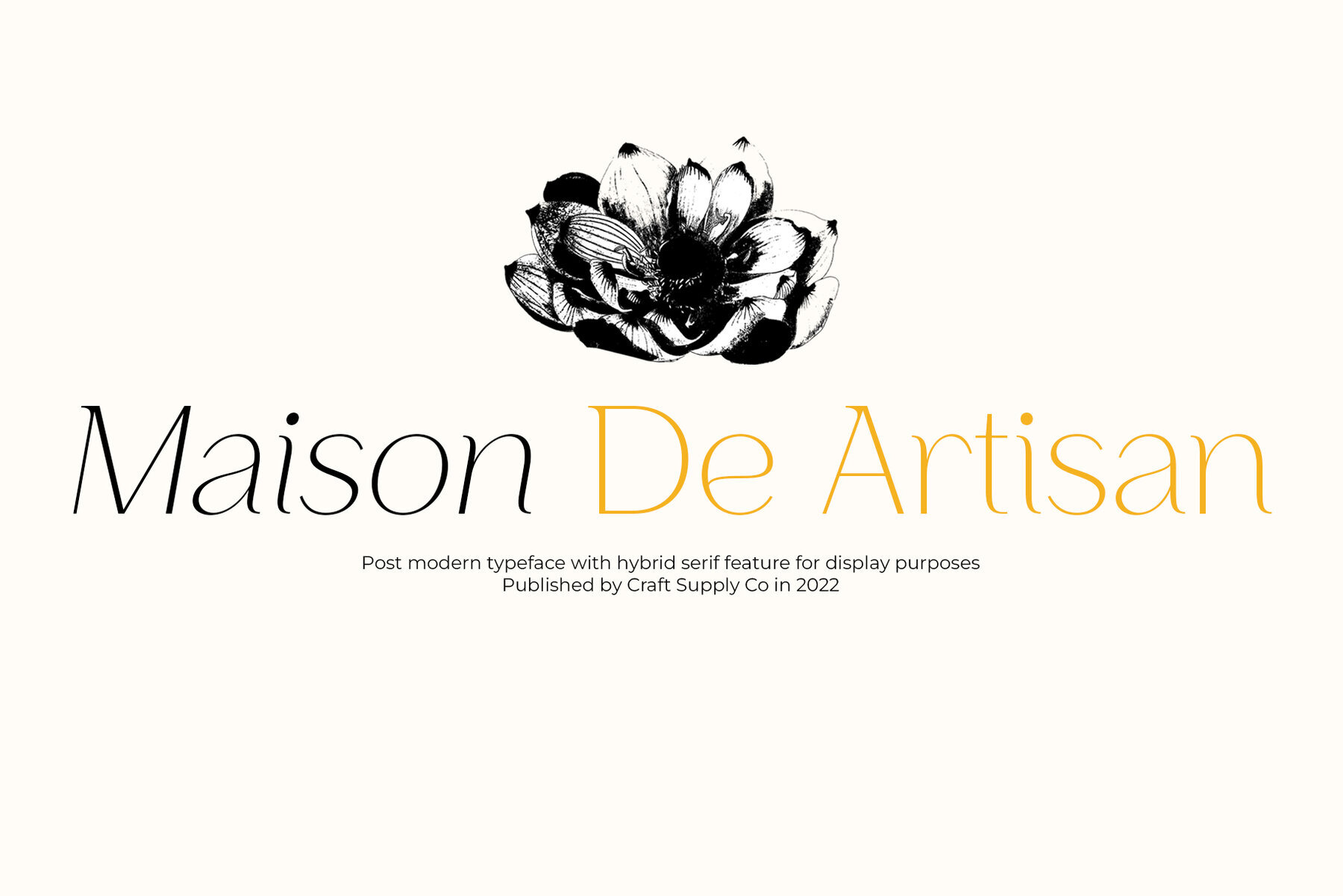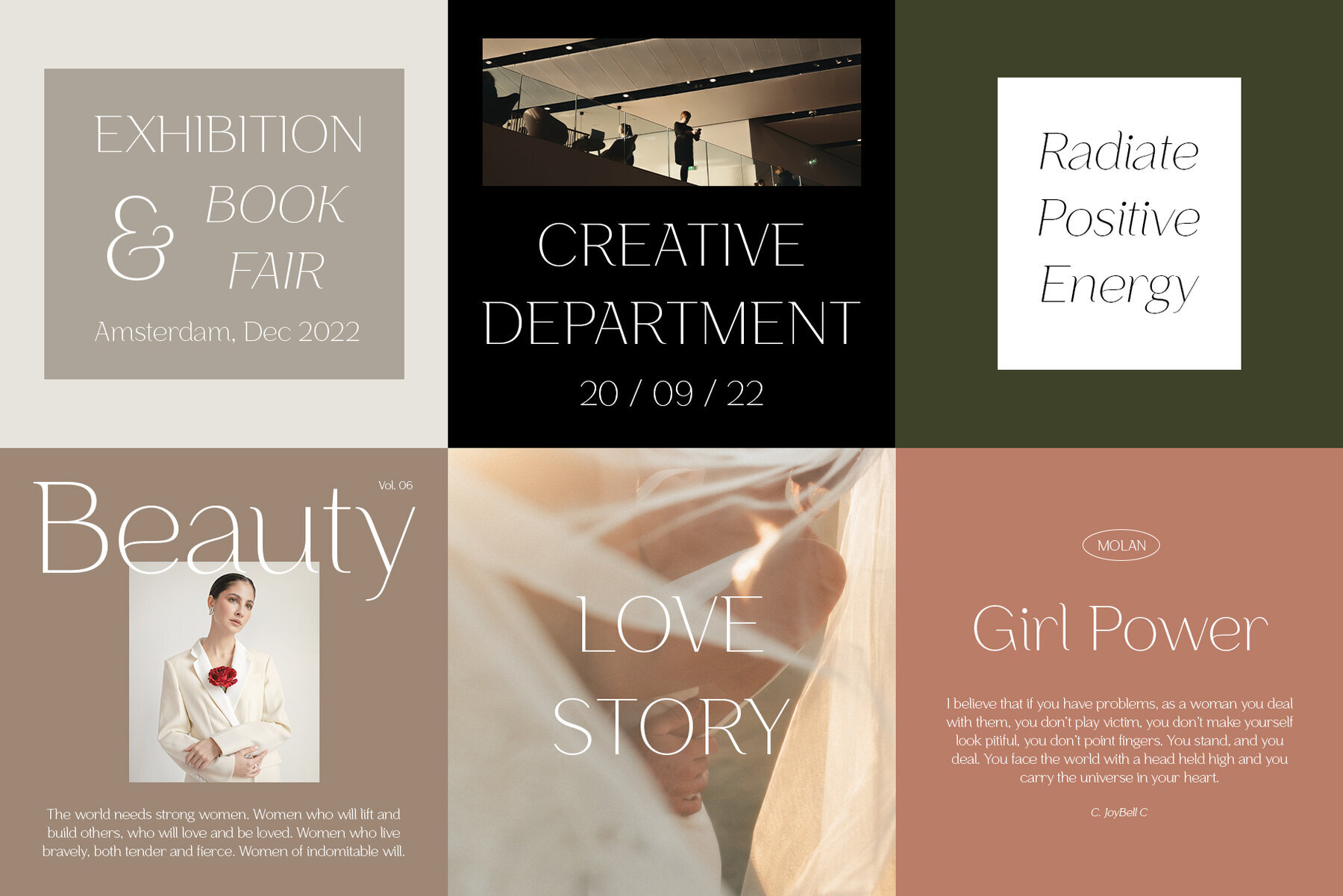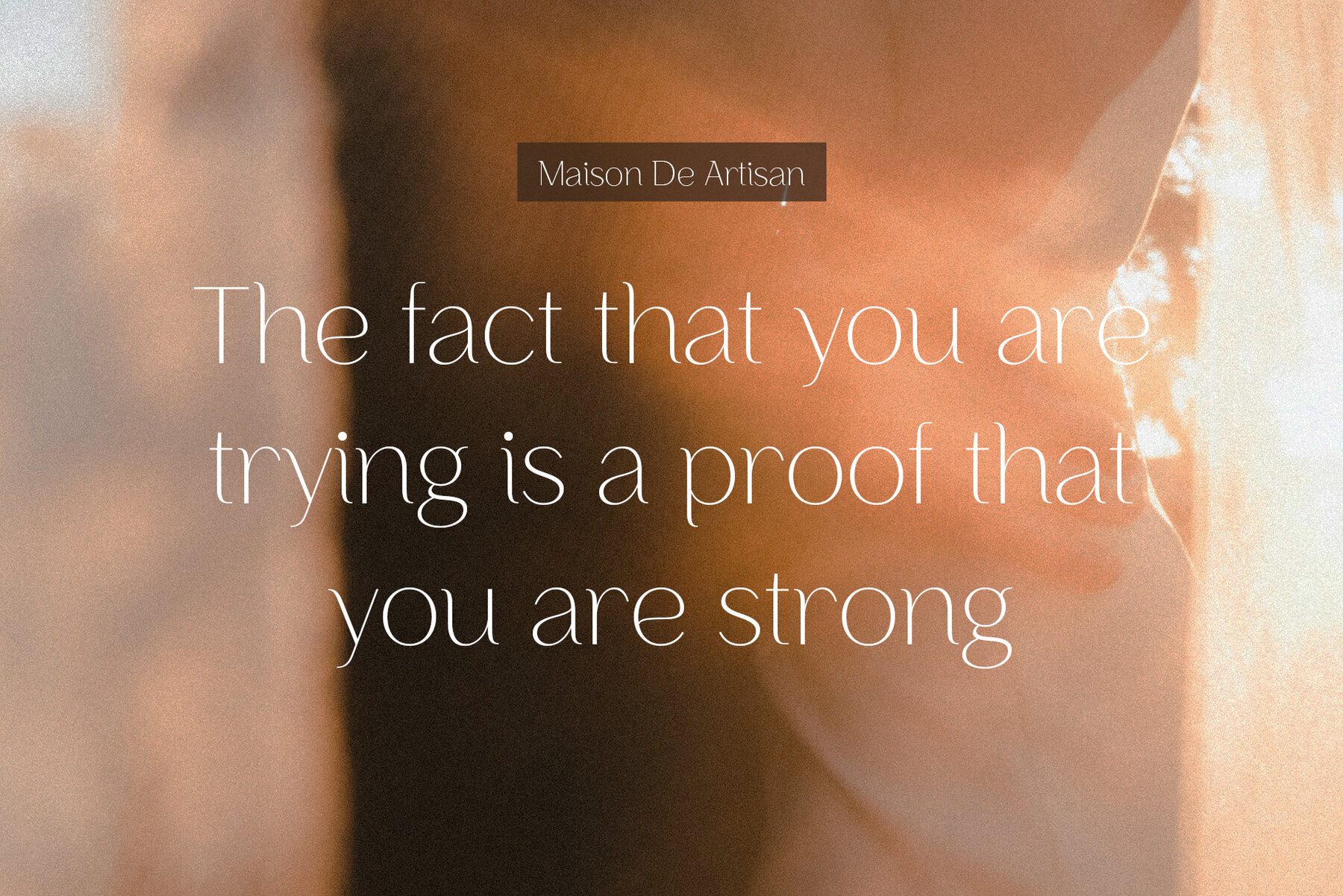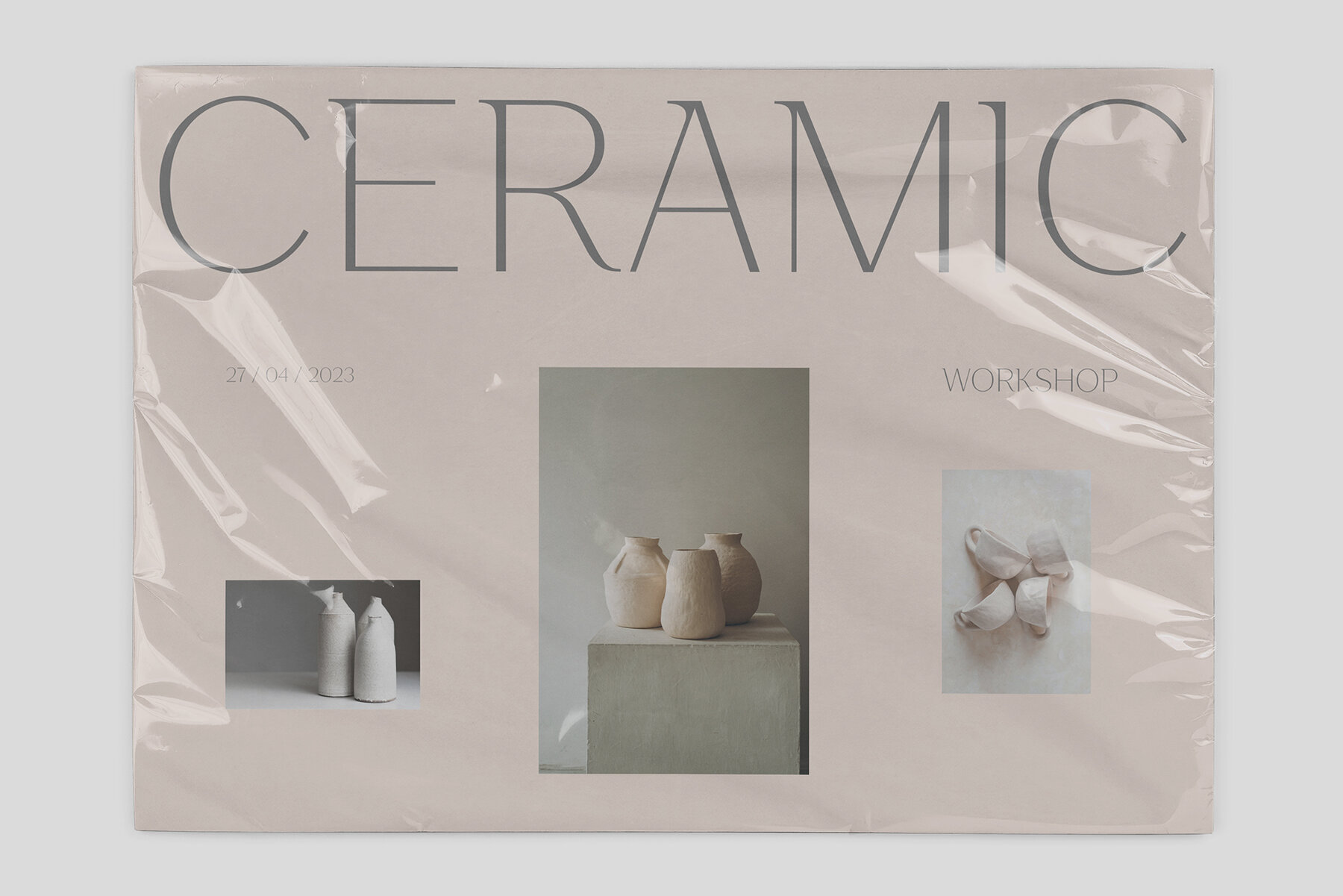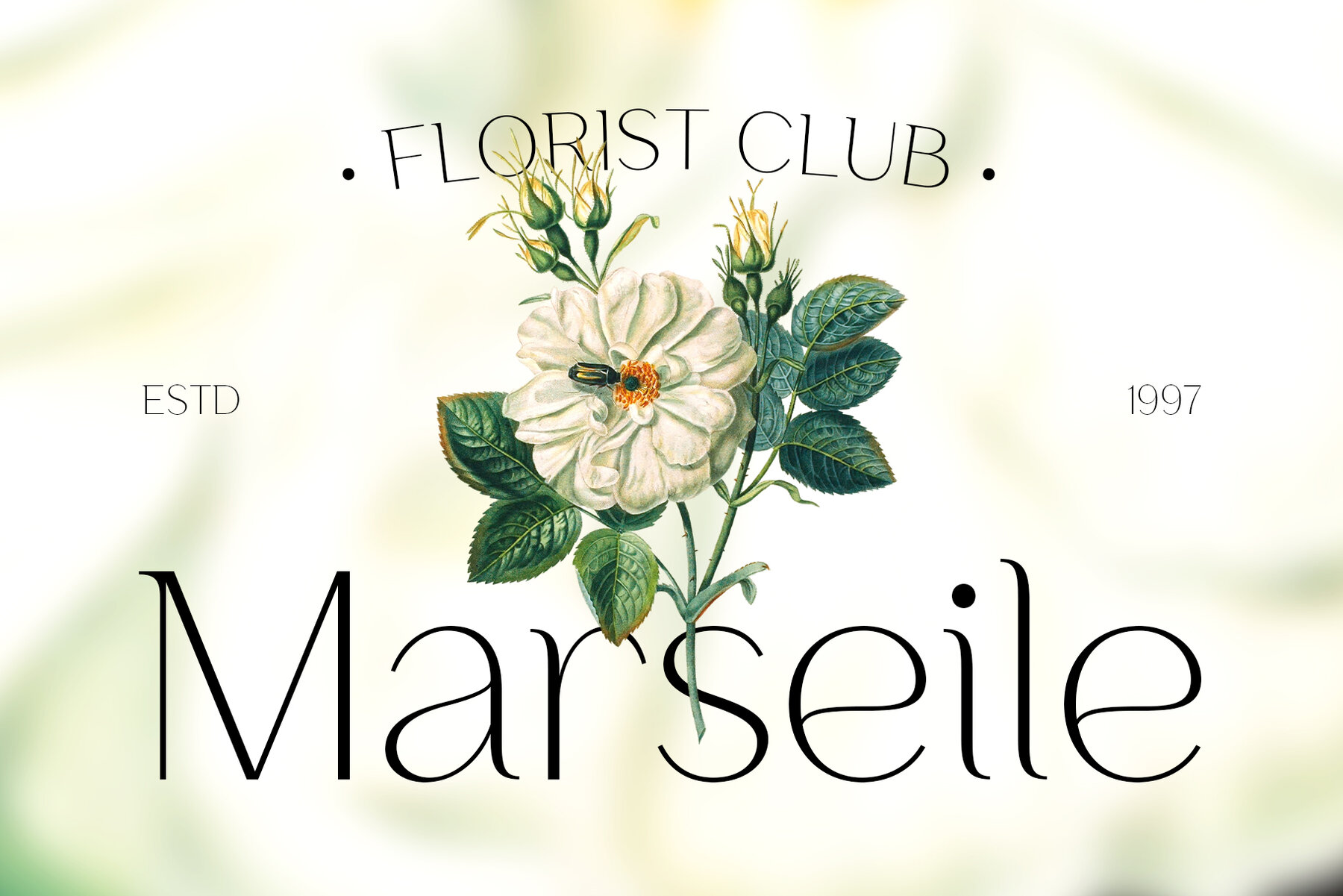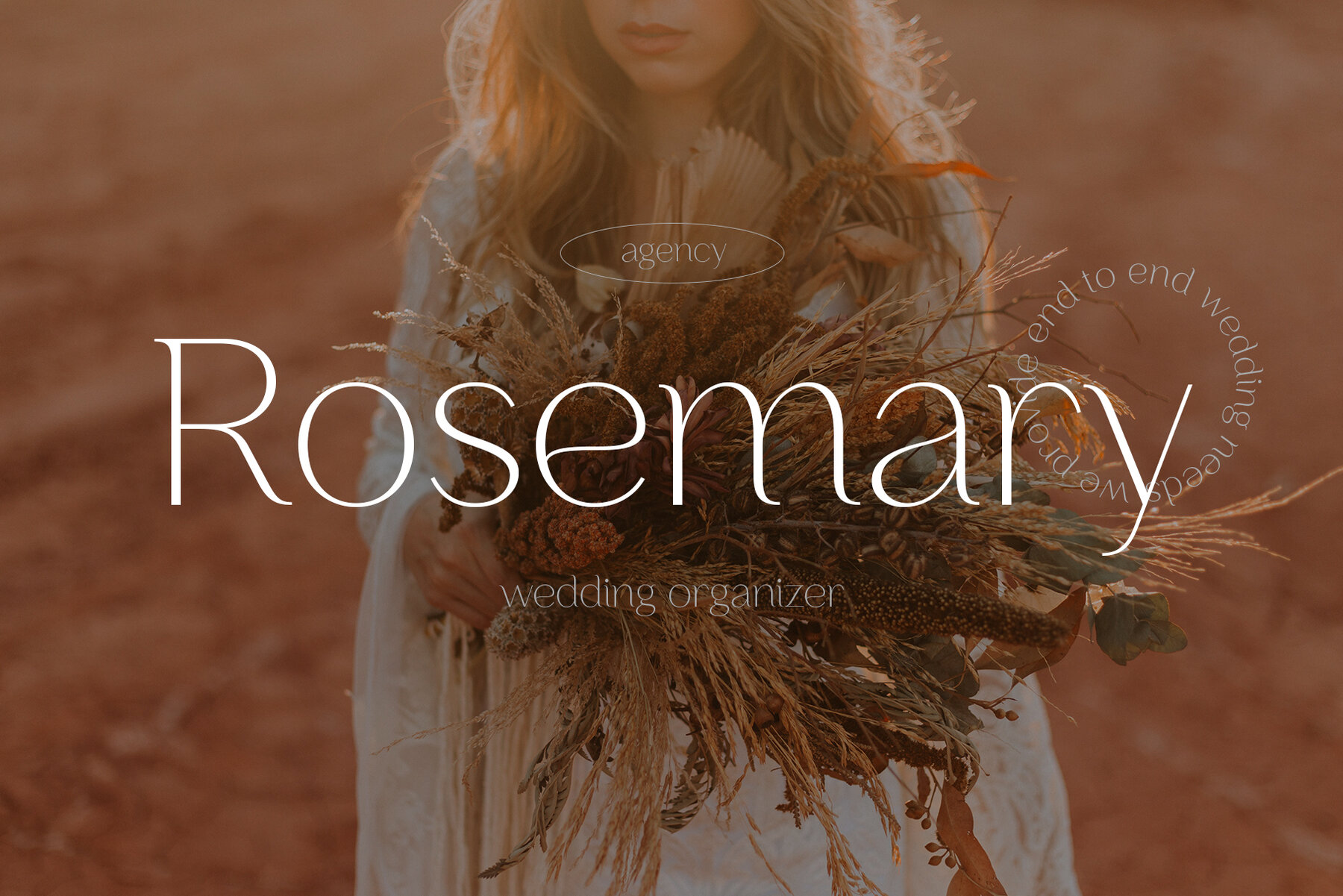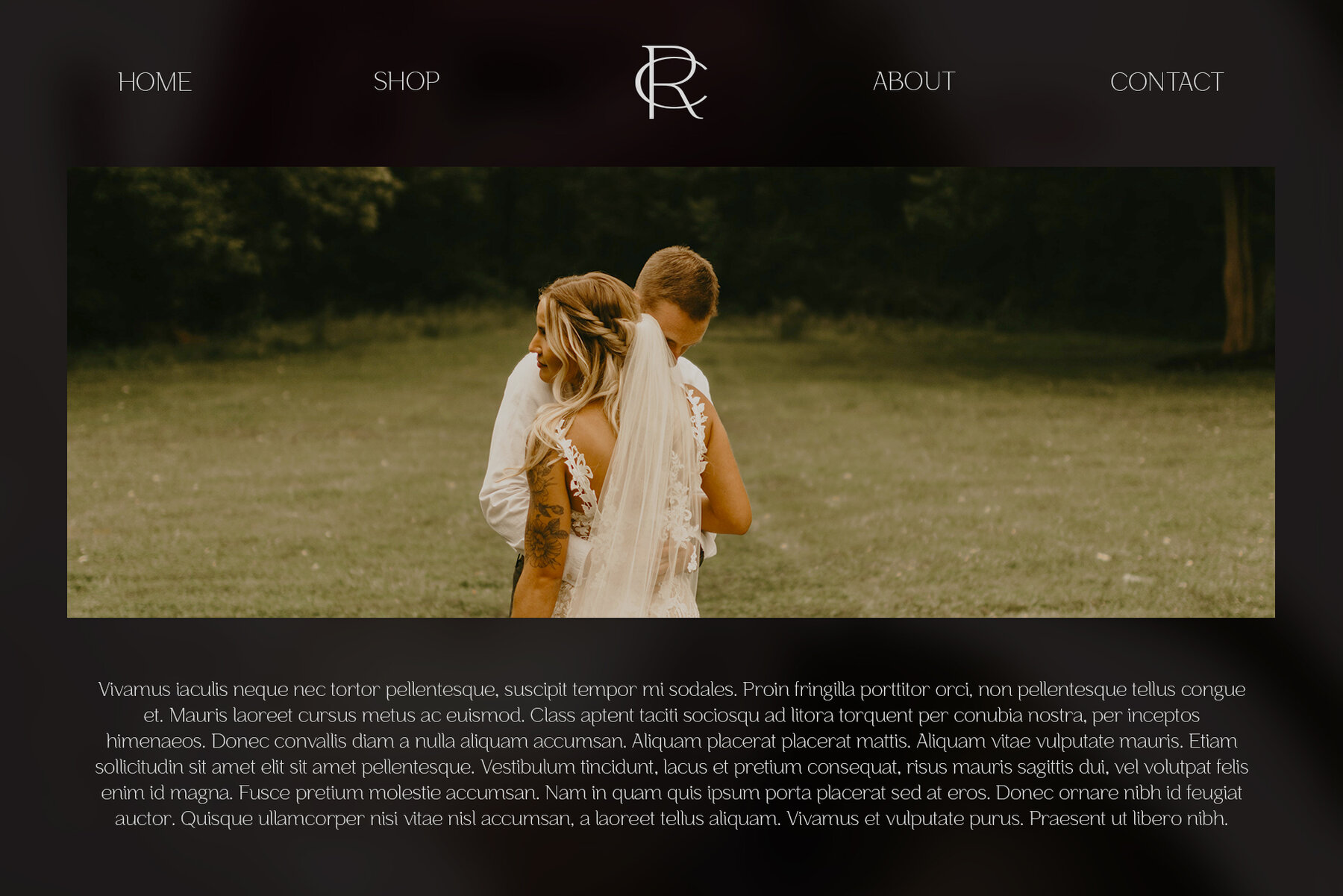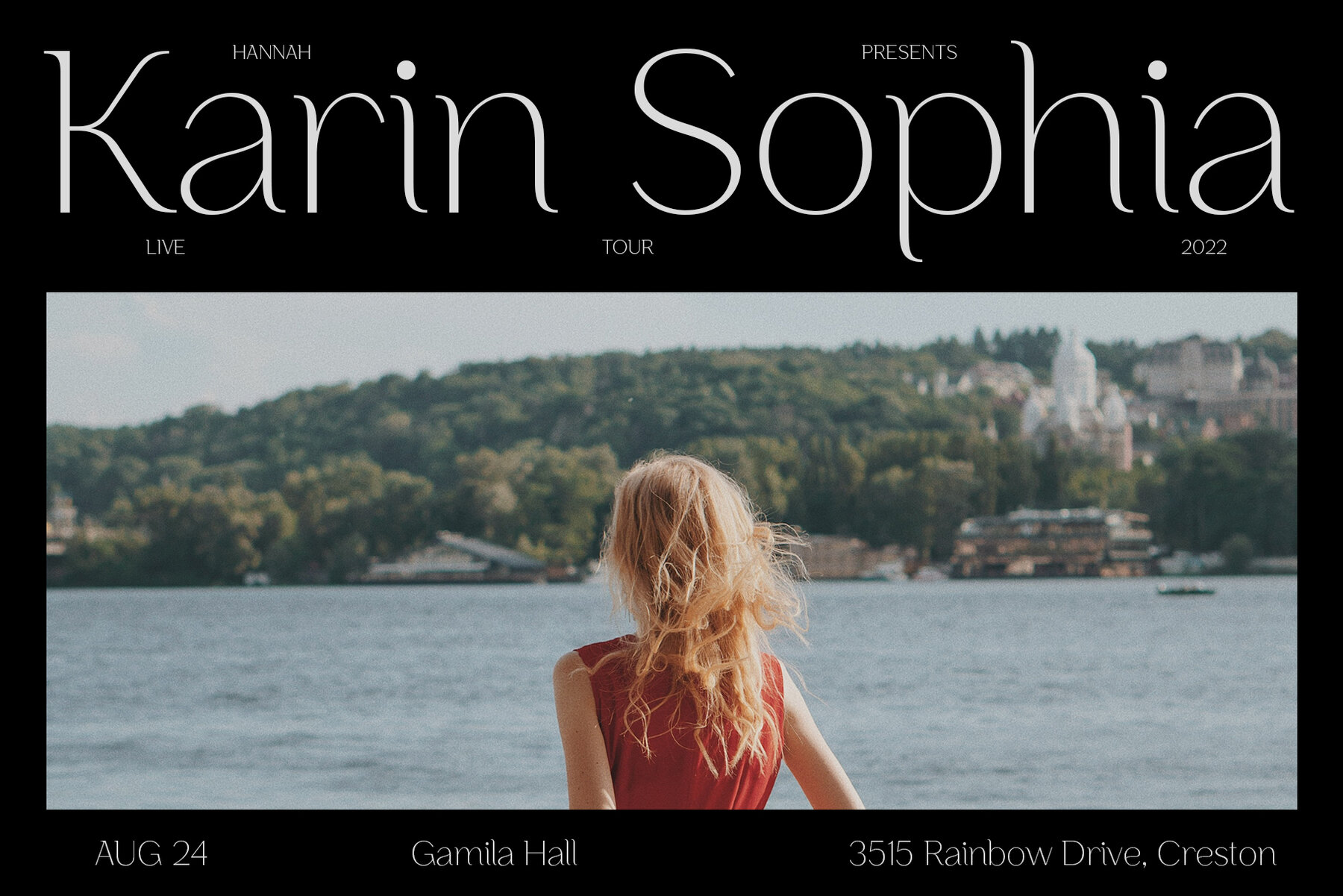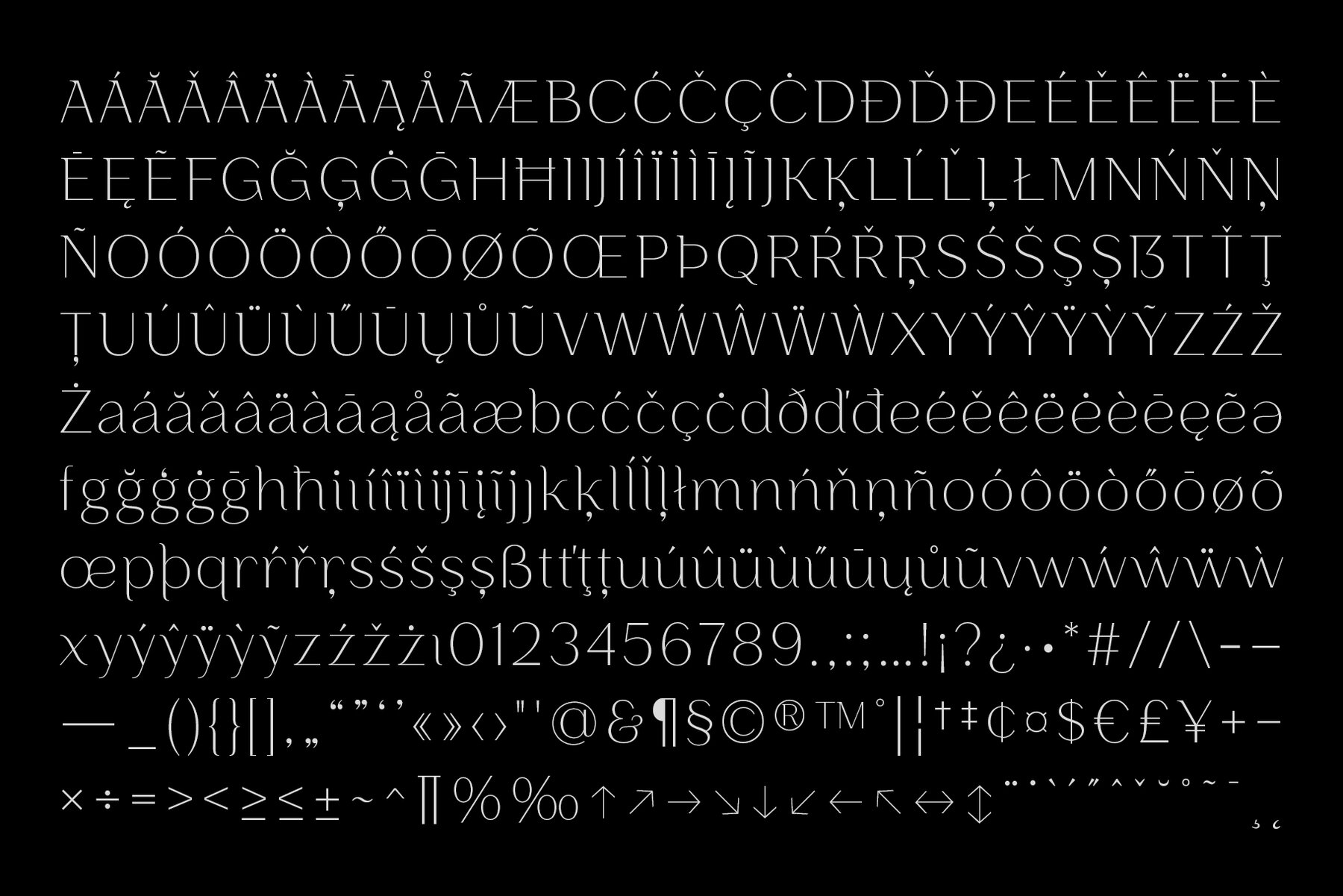
Maison De Artisan Font
Maison De Artisan beckons with its postmodern allure, featuring a hybrid serif style that commands attention. Ideal for greeting cards, package designs, branding initiatives, or any creative endeavor, this typeface adds a trendy and captivating element to your projects. Whether crafting a book title, poster, or diving into retro and pop vintage designs, its versatility shines through.Maison De Artisan: A Hybrid Serif Delight